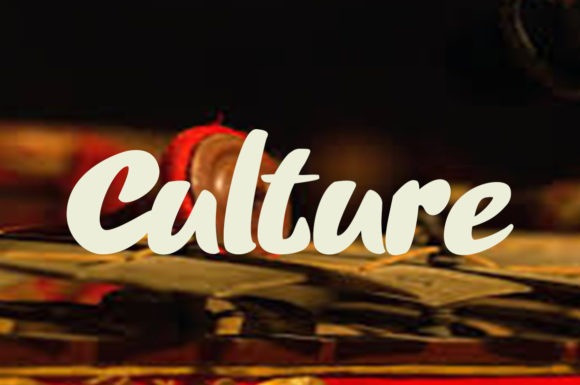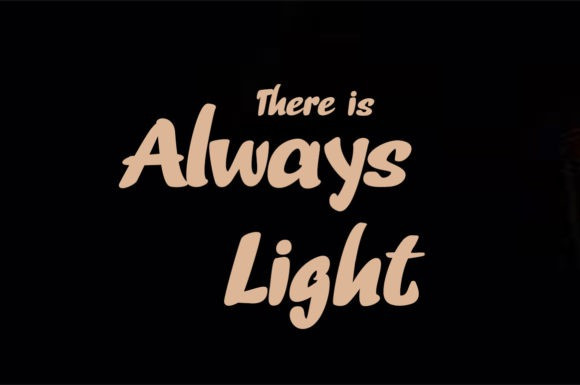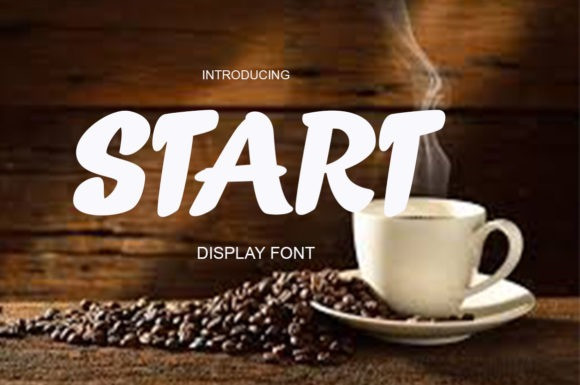
Start Font
Start Font is a thick lettered yet relaxed display font. Suitable to a wide variety of designs due to its neat and simple style, this font has the potential to become your favorite go to font, no mater the occasion!